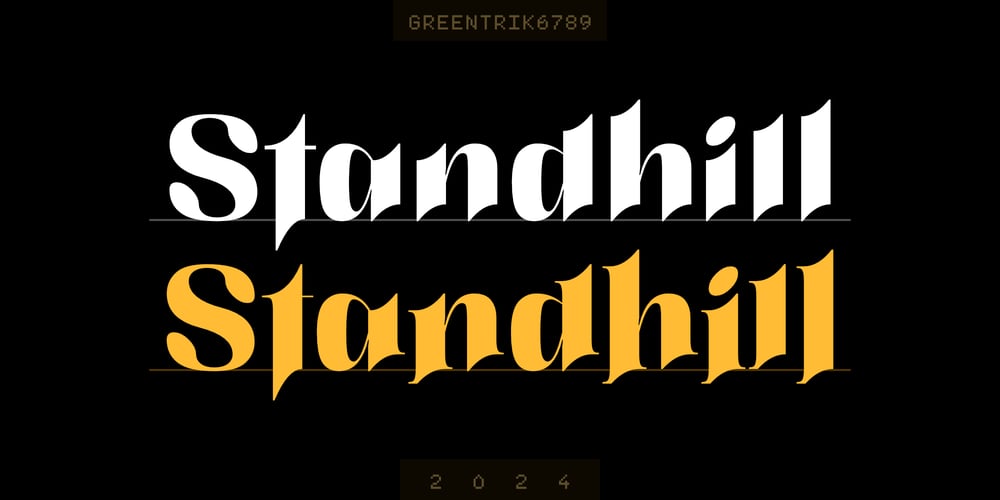
Standhill
Standhill Font Family was designed by Tri Kuncoro and published by Greentrik6789. Standhill contains 2 styles and family package options. Standhill is designed to allow each character to communicate with each other with the Opentype Contextual Alternates feature and provides a variety of ligature styles that can be adjusted to other characters with the Opentype Contextual Ligatures feature, explore the wonders of contextual alternates that look like ligatures.Standhill can be used for strong, bold, masculine and adventurous looks, it also comes in sans and serif style and come with a character set that can be used to add a beautiful touch to your design.